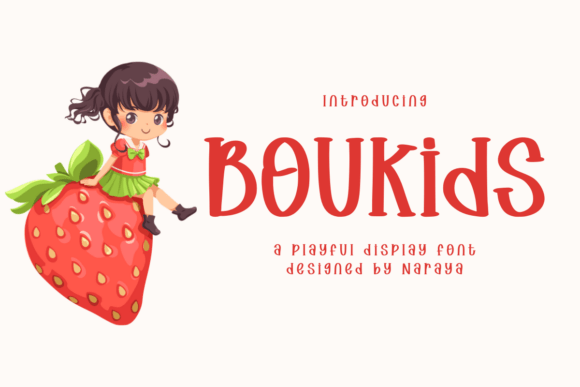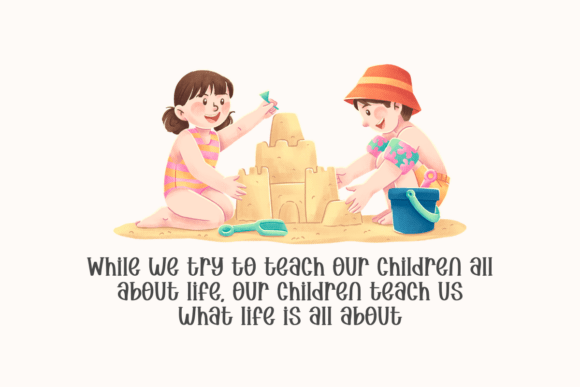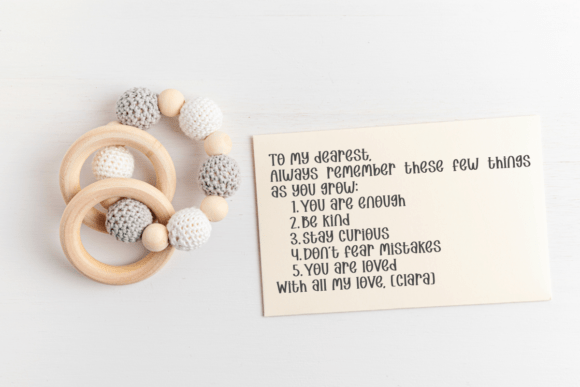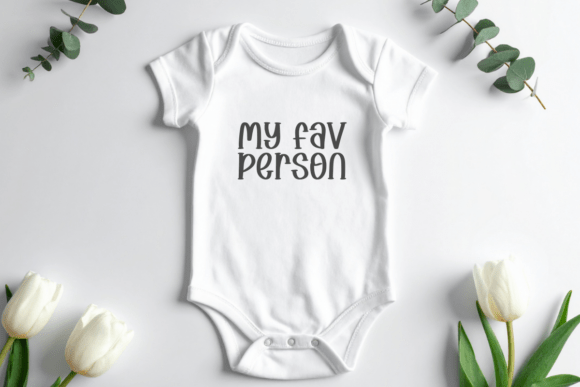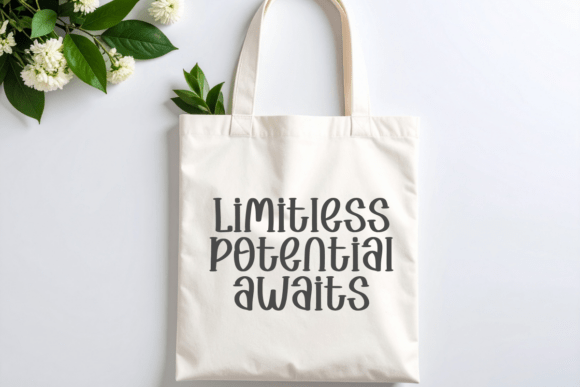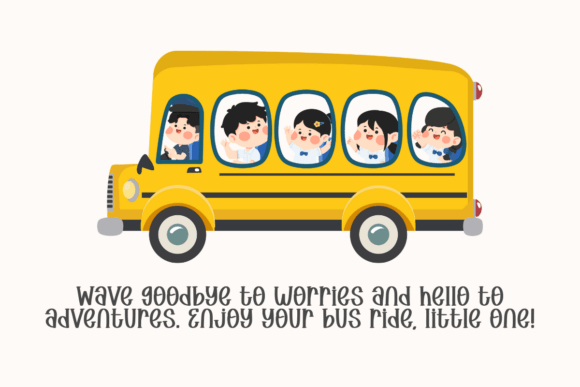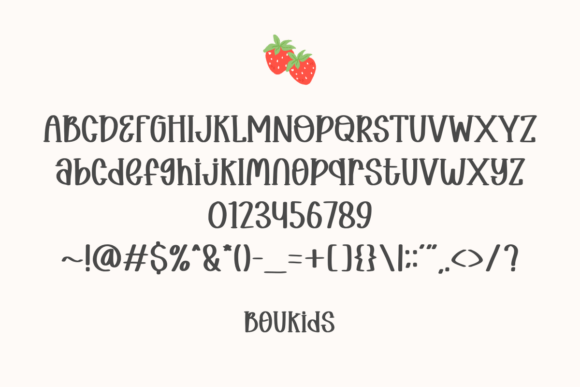
Discover the Joy of Handwritten Charm with Boukids Font
You know that feeling when you’re working on a creative project, and the right font just clicks? It’s like the entire design comes together, and you can’t wait to share it with the world. For designers and crafty entrepreneurs, finding that perfect font can be a game-changer. That’s where Boukids Font comes in – a playful and aesthetic handwriting display font designed to bring a sense of joy and personal warmth to all your creative projects.
Boukids Font features clean, bouncy lines and a charming monolinear weight that radiates a friendly yet modern vibe, making it the perfect choice for playful branding, creative journals, and whimsical quote designs. Whether you’re working on a custom acrylic keychain or a nursery decor project, Boukids Font is sure to add a touch of handmade authenticity to your work.
Boukids Font Key Features
- Font Family: Boukids, a modern sans-serif font designed specifically for children’s content.
- Unique Characteristics: Features rounded edges, soft curves, and a friendly tone, making it perfect for children’s books, educational materials, and family-friendly websites.
Boukids Font Review
Overall, I think the Boukids Font is a decent addition to the world of digital typography, but it has its strengths and weaknesses.
- Its playful and modern aesthetic is perfect for children’s content, making it a great choice for books, educational materials, and kid-friendly websites.
- The font is highly legible, even at smaller font sizes, which is essential for digital displays where text can become pixelated.
- The font supports a wide range of languages, making it a versatile option for global audiences.
- The font’s design can be a bit too cutesy for some users, which may not be suitable for more formal or professional applications.
- The font’s weight range is limited, which can make it challenging to achieve a consistent visual hierarchy in complex designs.
Overall, the Boukids Font is a solid choice for designers working on children’s content, but it may not be the best fit for more complex or formal designs.
Use the Boukids Font for children’s book illustrations, educational materials, and playful branding. Experiment with different font sizes, colors, and combinations to create a unique visual identity.
The Boukids Font is ideal for:
- Children’s book titles and headings
- Playful branding and logos
- Education materials and worksheets